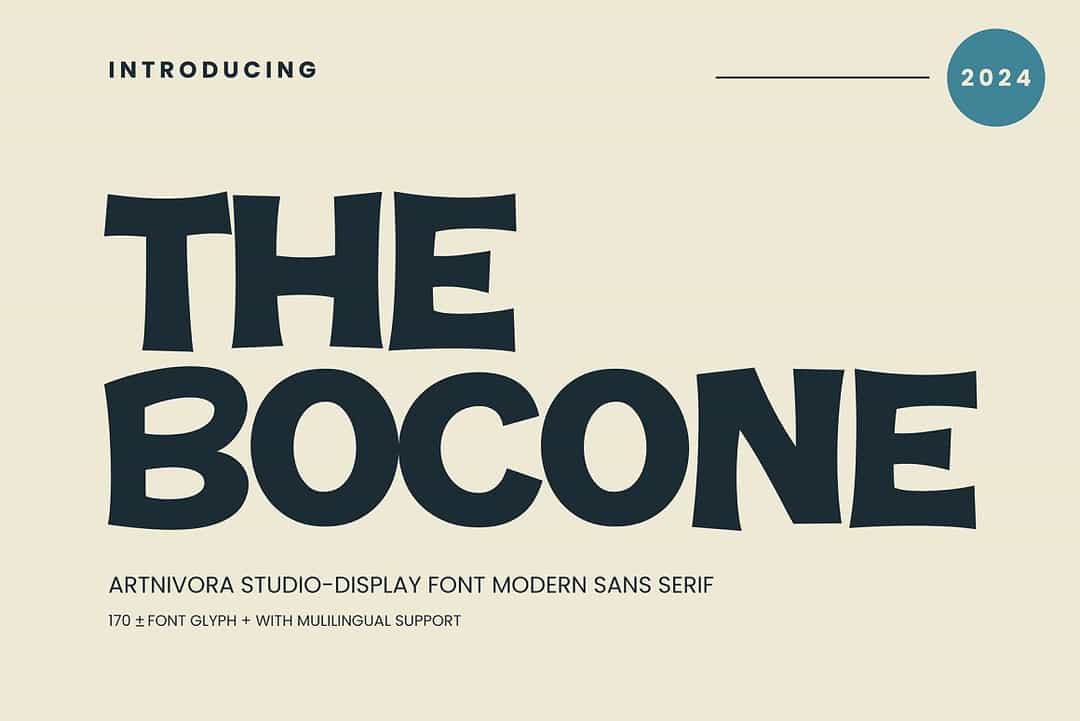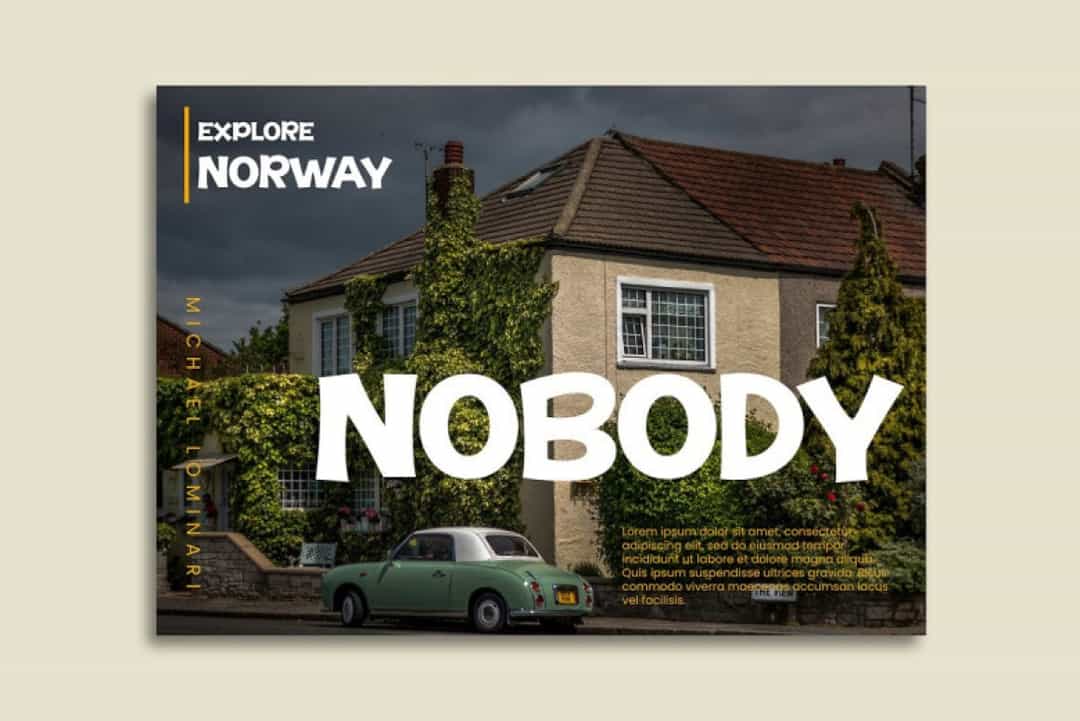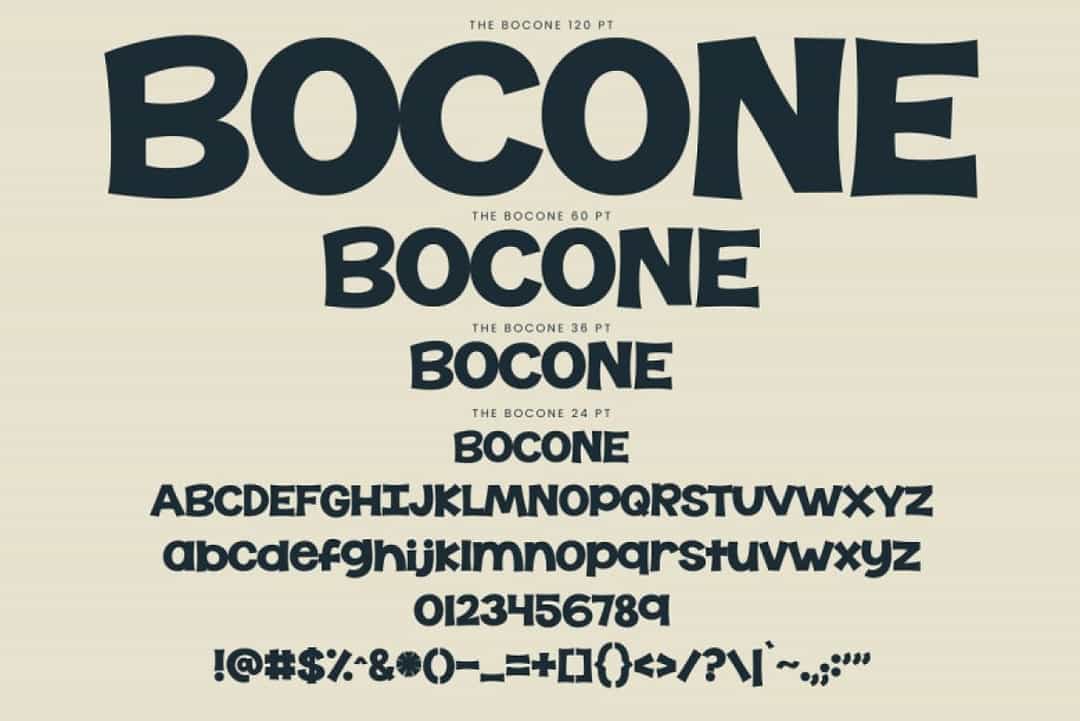
Discover The Bocone Font, part of the Sans Serif Display collection—a versatile and unique font perfect for adding a personal touch to your projects. Download it for free and enjoy crafting designs with style, from invitations to social media posts. This font is available exclusively for personal use, giving you the freedom to create without limits. Unlock your creativity with The Bocone Font today!
Bocone is an impressive sans serif font. No matter the subject matter of your design project, Bocone makes an outstanding addition to any font library as its versatility enables it to enhance any design element. Perfect for logos, magazines brochures social media posts and many other applications!